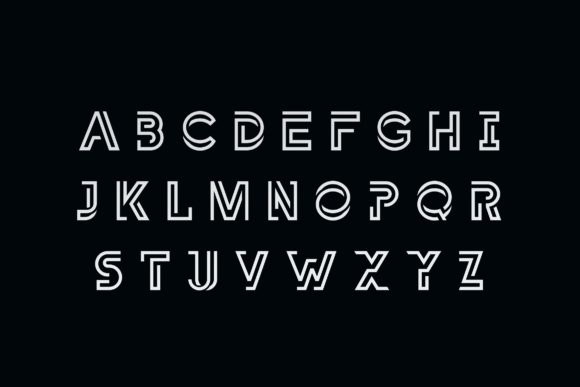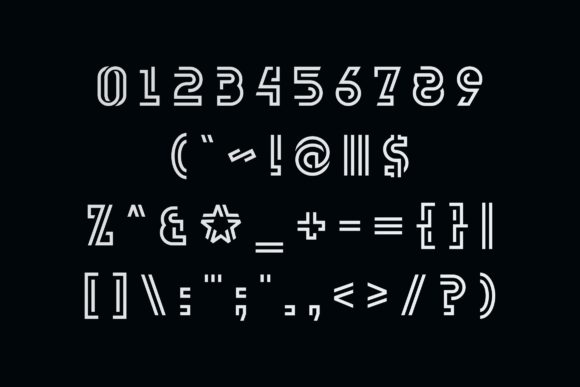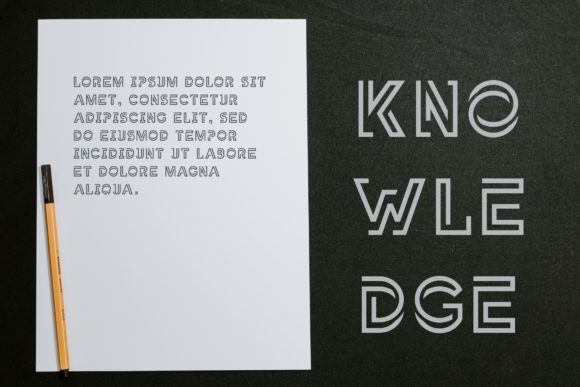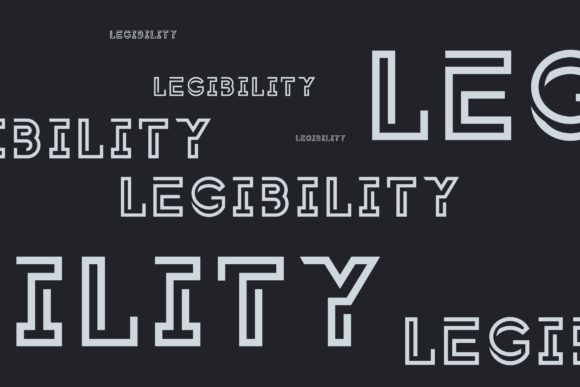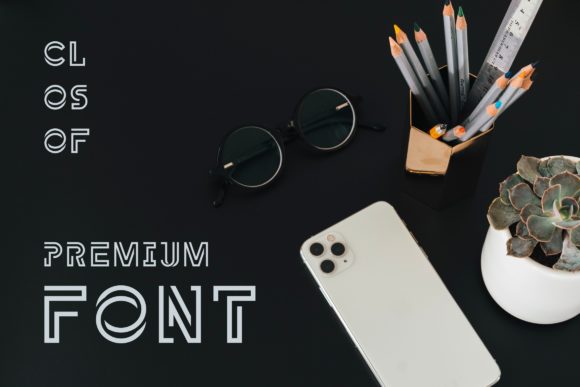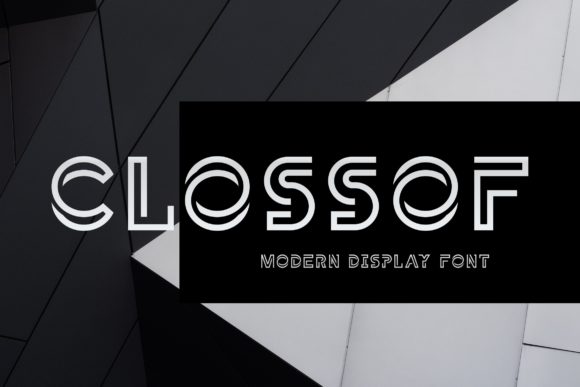
Introducing Clossof Font: Elevate Your Design with a Modern Twist
In the world of typography, fonts play a crucial role in conveying messages, expressing creativity, and establishing brand identities. For designers, crafters, and marketers, finding the perfect font can be a daunting task. However, if you’re looking for a modern-styled display font that can add a cool factor to your work, look no further than Clossof Font. In this article, we’ll explore the features, benefits, and uses of Clossof Font, and why it’s an excellent choice for your next design project.
What is Clossof Font?
Clossof Font is a contemporary display font designed to make a statement. Its sleek lines, unique curves, and modern aesthetic make it perfect for a wide range of applications, from logos and branding to titles, subtitles, and more. Whether you’re working on a website, social media graphics, or print materials, Clossof Font is sure to grab attention and leave a lasting impression.
Key Features of Clossof Font
- Modern Design: Clossof Font boasts a fresh, modern look that’s perfect for designers and brands looking to establish a contemporary image.
- Versatility: This font is incredibly versatile, making it suitable for various design projects, from logos and branding to titles, subtitles, and more.
- High-Quality: Clossof Font is a high-quality font designed to ensure clarity and legibility, even at smaller sizes.
- Easily Customizable: With Clossof Font, you can easily adjust the font size, style, and color to fit your design needs.
Benefits of Using Clossof Font
So, why choose Clossof Font for your design projects? Here are just a few benefits:
- Stand Out from the Crowd: With Clossof Font, you can create unique and eye-catching designs that set you apart from the competition.
- Establish a Strong Brand Identity: Clossof Font is perfect for logos, branding, and marketing materials, helping you establish a consistent and recognizable brand image.
- Save Time and Effort: With its versatility and customizability, Clossof Font saves you time and effort in finding the perfect font for your project.
Who Can Benefit from Clossof Font?
Clossof Font is an excellent choice for a wide range of designers, crafters, and marketers, including:
- Graphic Designers: Looking for a modern font to elevate their designs and establish a strong brand identity.
- Digital Marketers: Seeking a font that can help them create eye-catching social media graphics, website headers, and marketing materials.
- Crafters and Makers: Needing a unique font for their handmade products, packaging, or branding materials.
How to Use Clossof Font
Using Clossof Font is easy! Here are a few tips to get you started:
- Pair it with Other Fonts: Combine Clossof Font with other fonts to create a unique and visually appealing design.
- Experiment with Colors and Sizes: Play around with different colors and font sizes to find the perfect combination for your design.
- Use it for Headings and Titles: Take advantage of Clossof Font’s display capabilities by using it for headings, titles, and subtitles.
In conclusion, Clossof Font is an exceptional modern-styled display font that’s perfect for designers, crafters, and marketers looking to elevate their work. With its sleek design, versatility, and customizability, Clossof Font is an excellent choice for a wide range of design projects. Whether you’re looking to establish a strong brand identity, create eye-catching graphics, or simply add a touch of modernity to your work, Clossof Font is the perfect tool for the job.